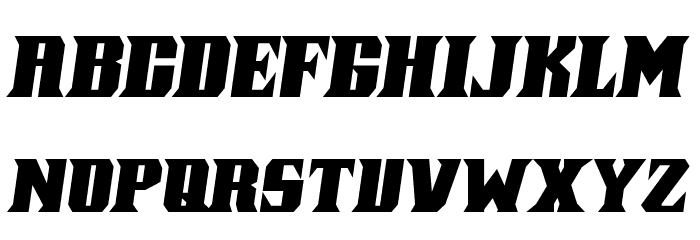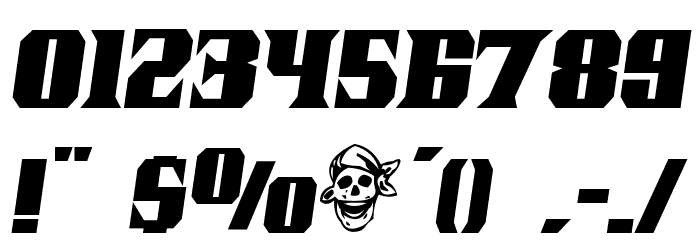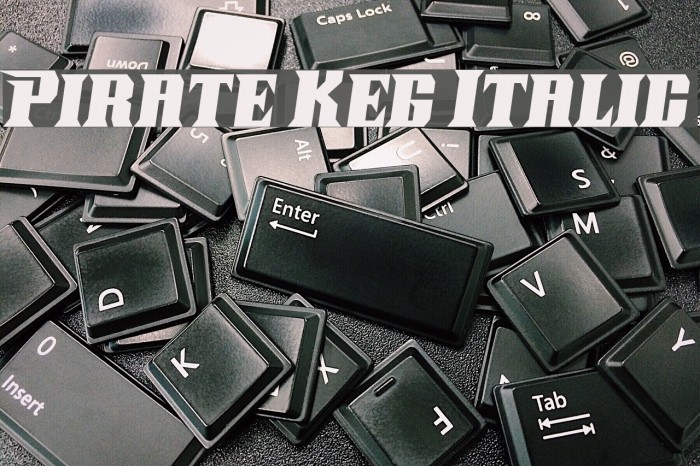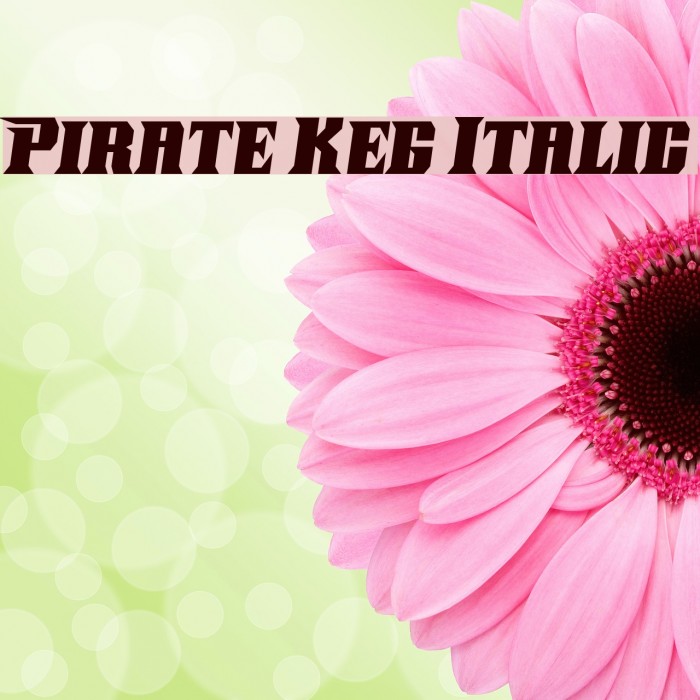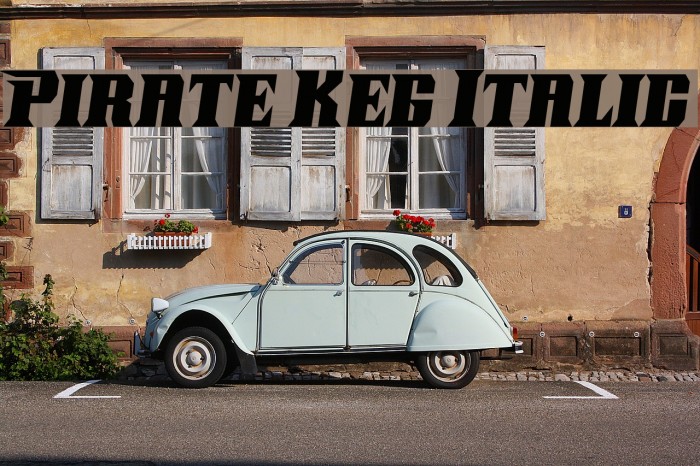
Pirate Keg Italic Font
This font features a bold, angular design with a distinct pirate theme. The characters are sharply cut with a slight slant, giving an italicized appearance. The uppercase and lowercase letters maintain a consistent style, with exaggerated serifs and a strong presence. The numbers and special characters follow the same bold and adventurous aesthetic, making them ideal for thematic designs. The font's unique style is reminiscent of pirate lore, with a modern twist that makes it suitable for eye-catching headlines and decorative purposes.
Bold, angular, and pirate-themed with a slight italic slant.
- Proposed Projects: Ideal for pirate-themed events, adventure games, movie posters, and themed party invitations.